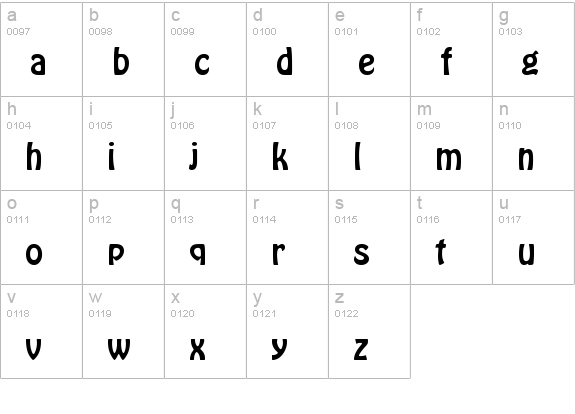
Introducing HoboDEE font, a whimsical and playful typeface that exudes charm and character. With its quirky design and unique letterforms, HoboDEE is perfect for adding a touch of creativity to any project. This font is free to download at FontsMarket.com, making it easily accessible for all your design needs. Whether you're working on a fun poster, a playful logo, or a creative branding project, HoboDEE is sure to make a bold statement. Embrace the free-spirited vibe of this font and let your imagination run wild with endless design possibilities. Download HoboDEE today and unleash your creativity!